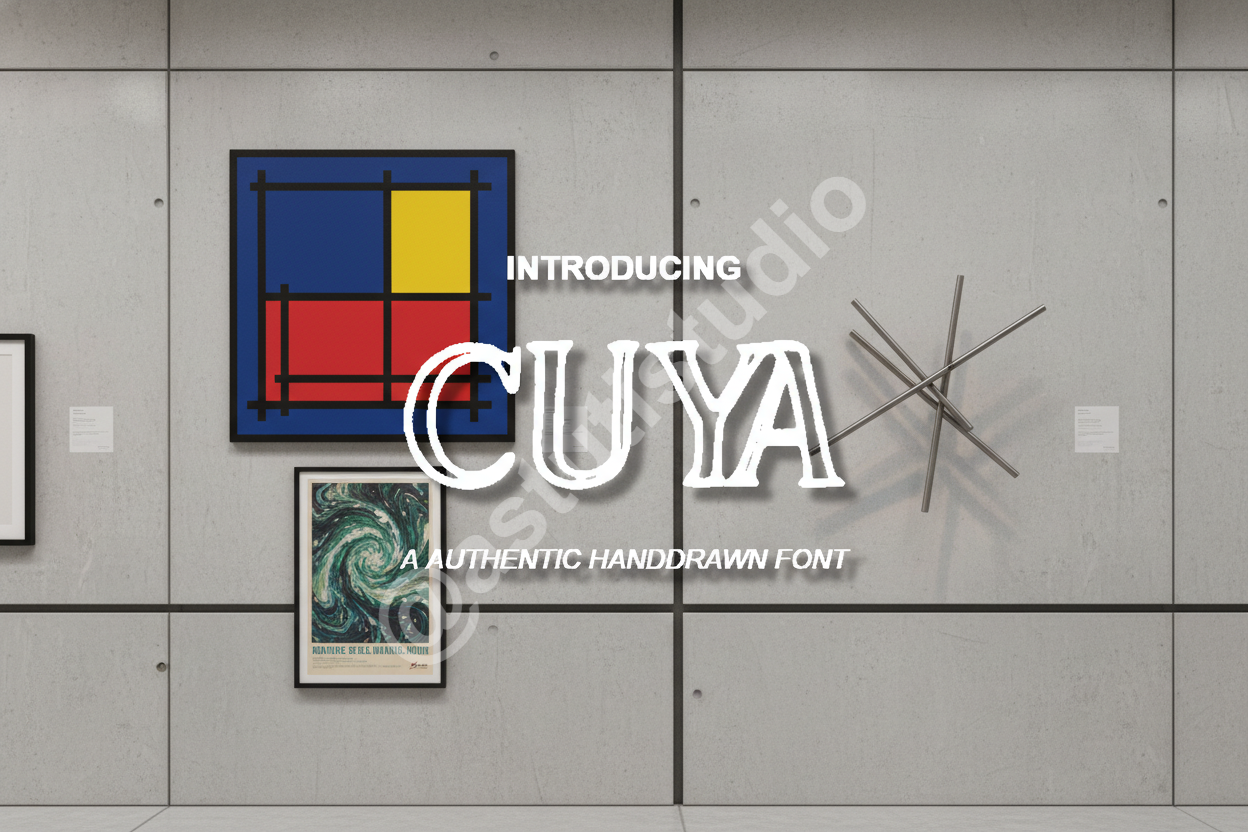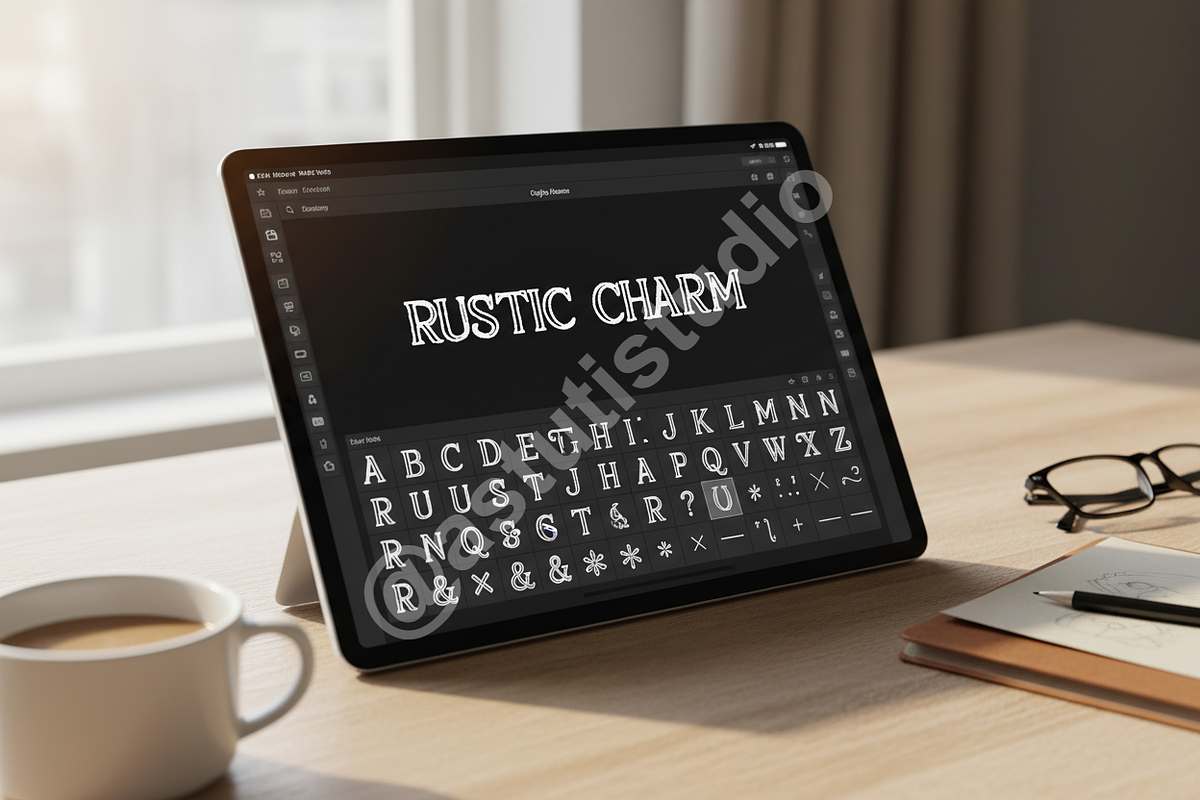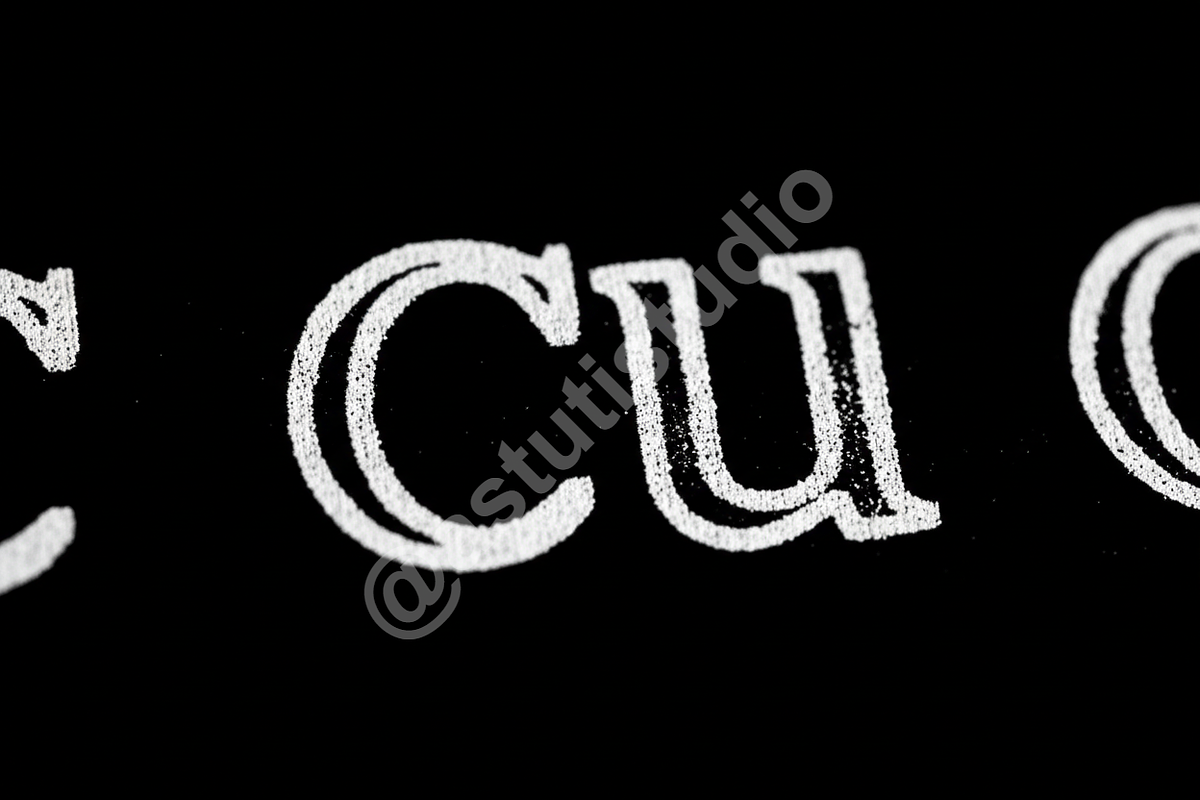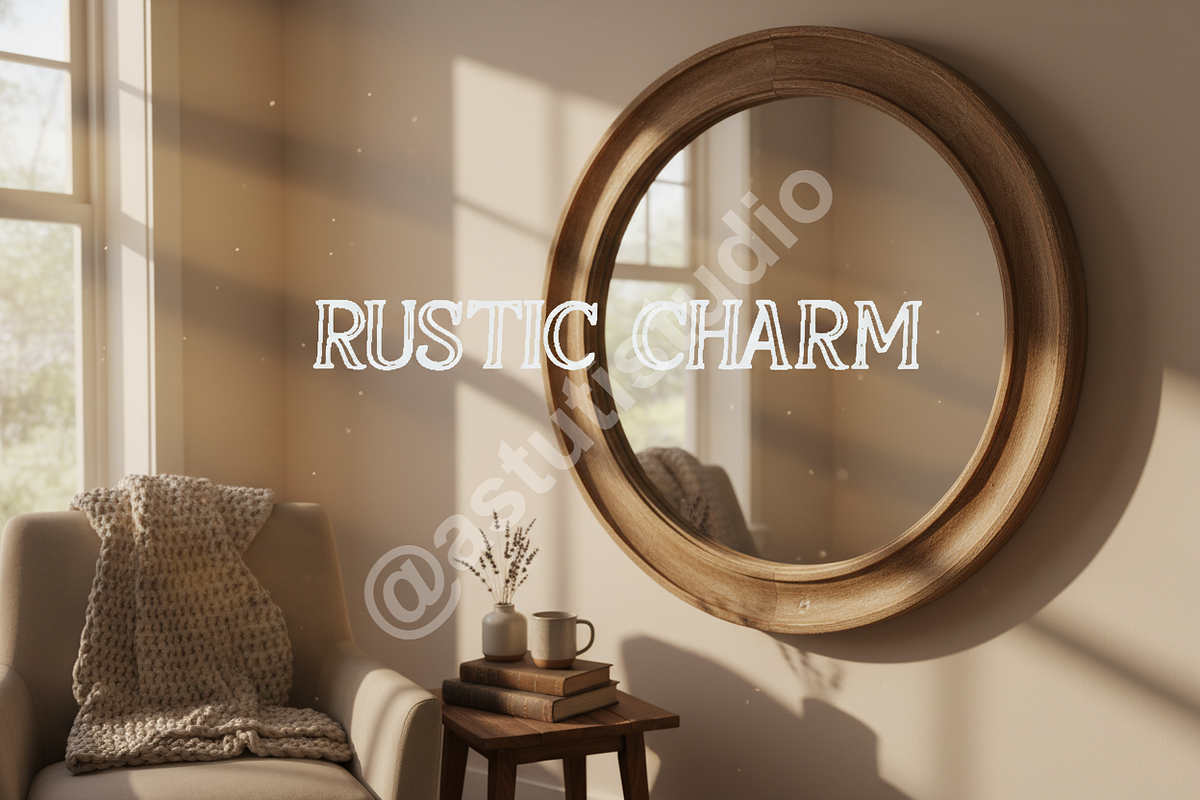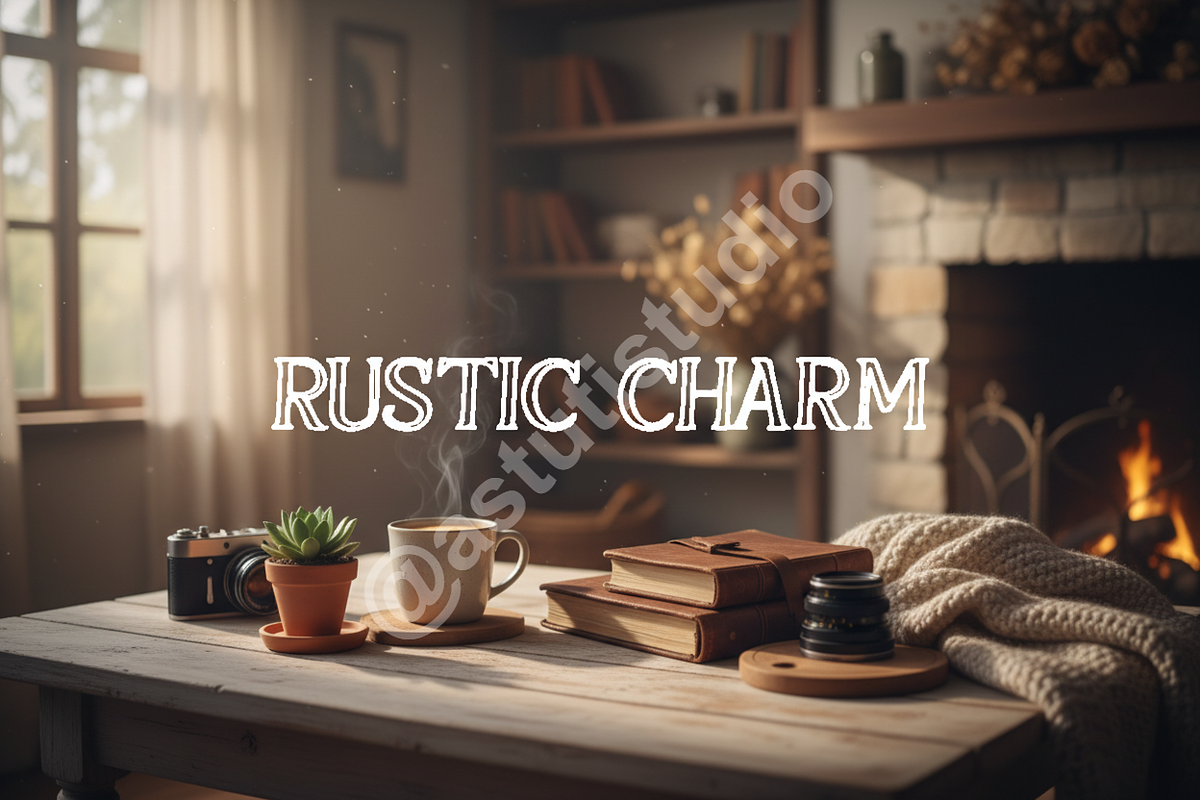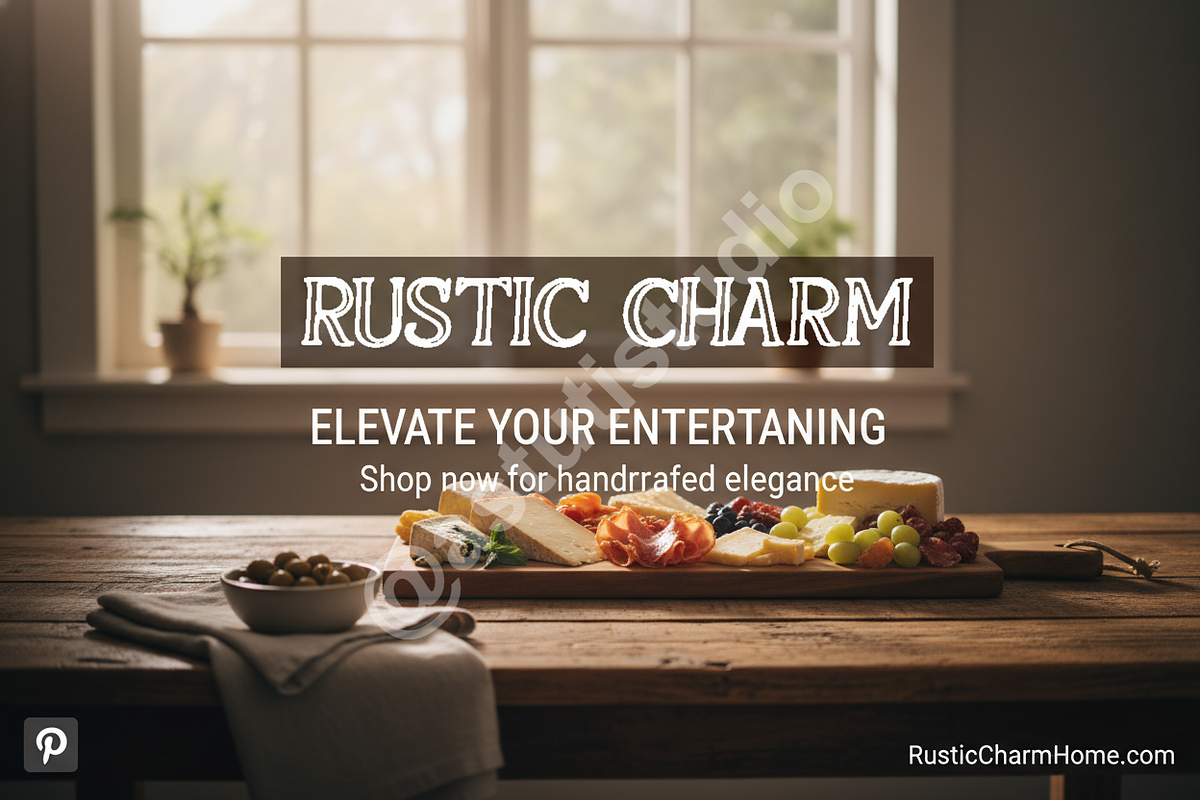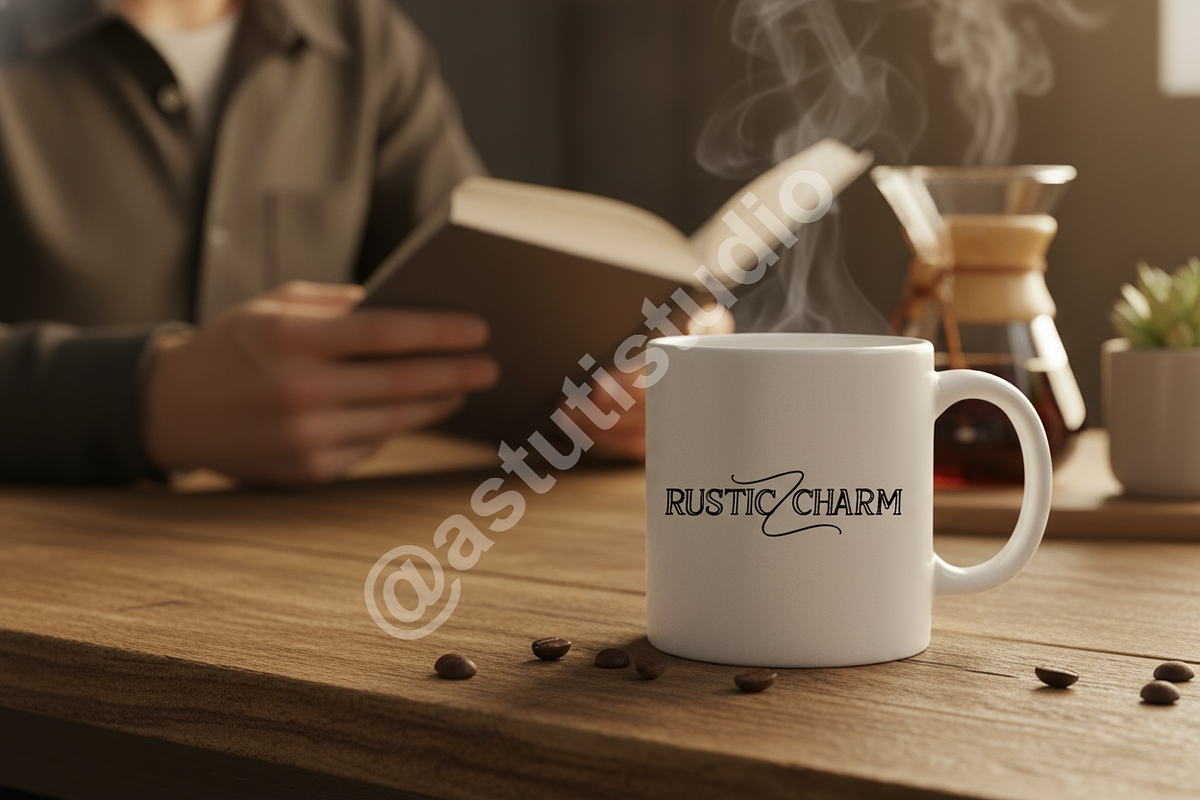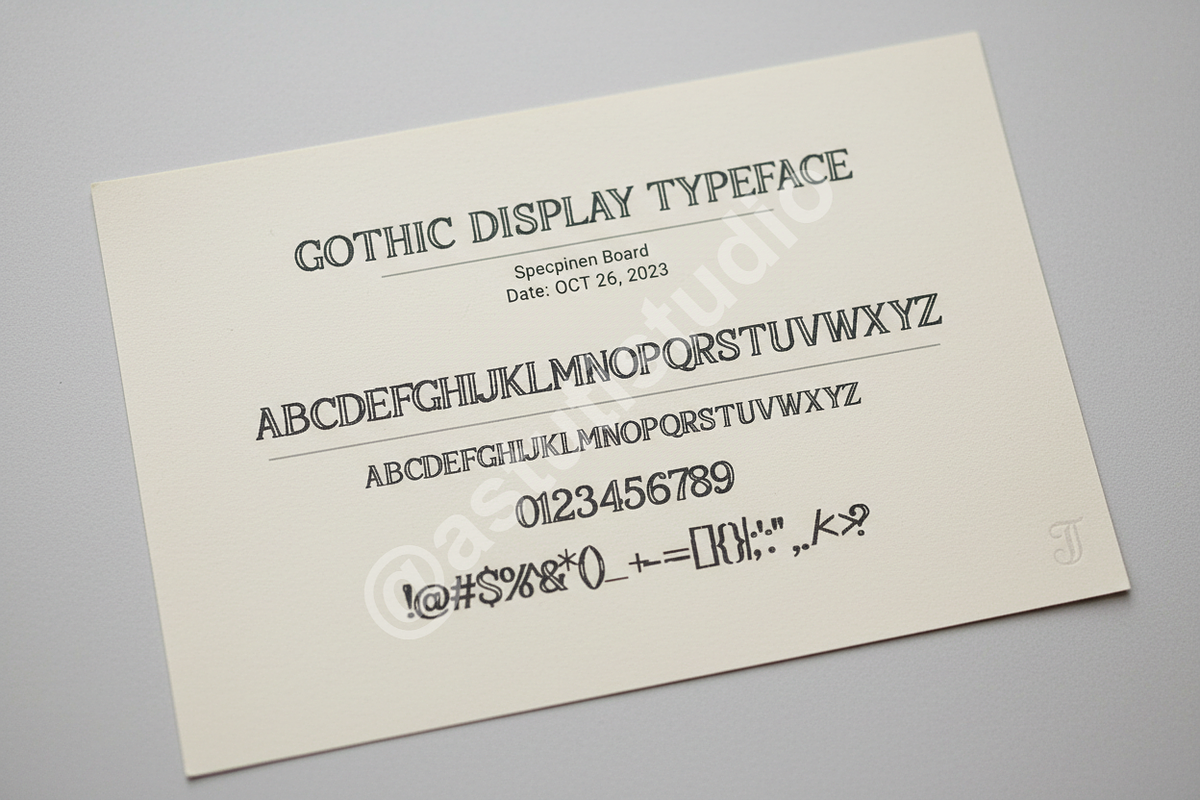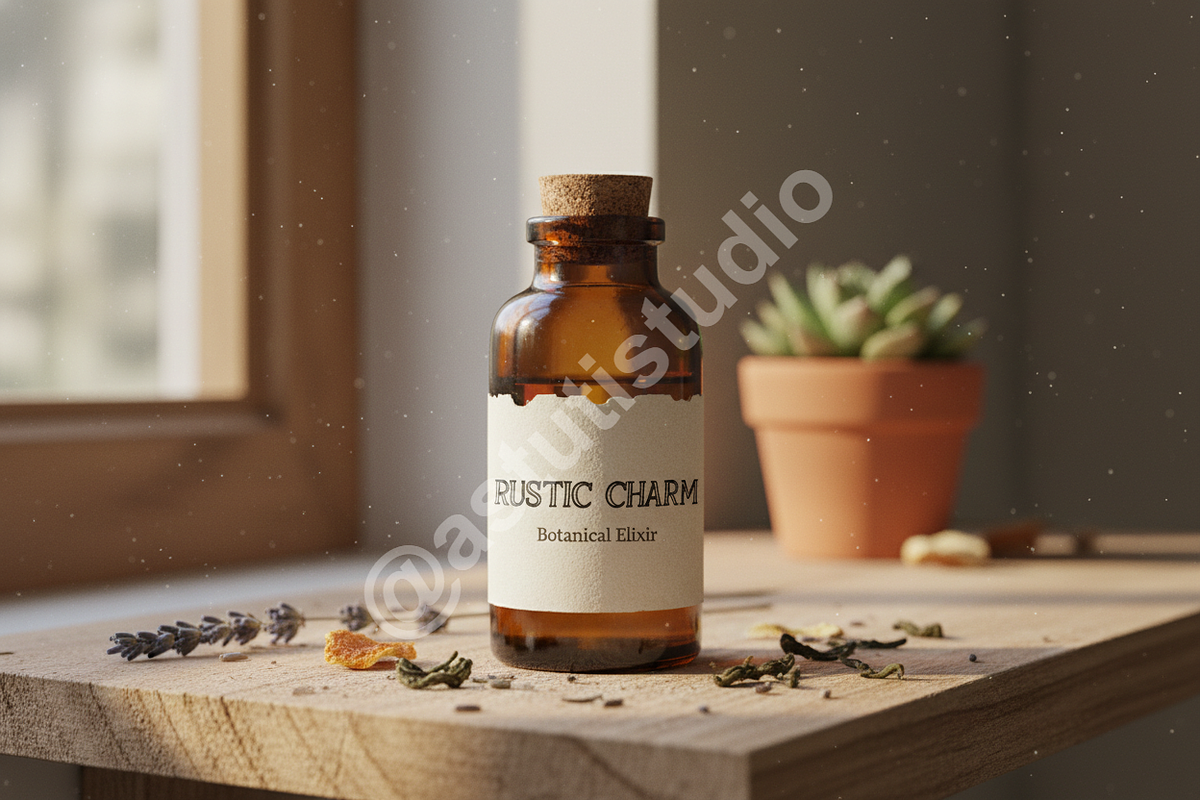
Cuya - Refined Serif Typeface for Pr
Introducing Cuya, an exquisitely crafted serif typeface designed to elevate your brand with timeless elegance and modern sophistication. Cuya embodies a refined aesthetic, making it the quintessential choice for luxury branding, high-end editorial layouts, and impactful social media campaigns. Its balanced letterforms and subtle details exude premium quality, ensuring your message is conveyed with undeniable grace.
- Sophisticated Serif Design: A harmonious blend of classic elegance and contemporary style.
- Extensive Ligatures & Alternates: Enhance your typography with a rich set of stylistic alternatives and ligatures for unique customization.
- Multilingual Support: Broad language coverage to reach a global audience.
- Punctuation & Numerals: Comprehensive character set for versatile application.
- Optimized for Readability: Designed for clarity across various sizes and mediums, from headlines to body text.